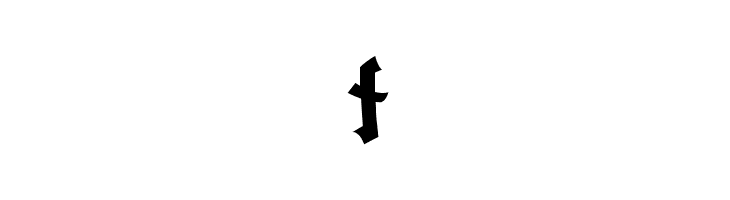
A playful and whimsical design featuring cartoonish animal faces with bold, rounded features.
( Fonts by Arterfak Project )
A playful, eclectic font with retro vibes and unique character designs.
( Fonts by Blackletter Studio )
An ornate, medieval-style font with decorative flourishes and sharp angles.
( Fonts by Tokopress )
A bold, graffiti-inspired font with sharp angles and dynamic strokes.
( Fonts by BlackFridayFont FMF )
Whimsical, cartoon-style decorative font with unique character illustrations.
( Fonts by BlackFridayFont FMF )
Cartoon face-based decorative font with playful expressions.
( Fonts by BlackFridayFont FMF )
A whimsical, hand-drawn cartoon face illustration set.